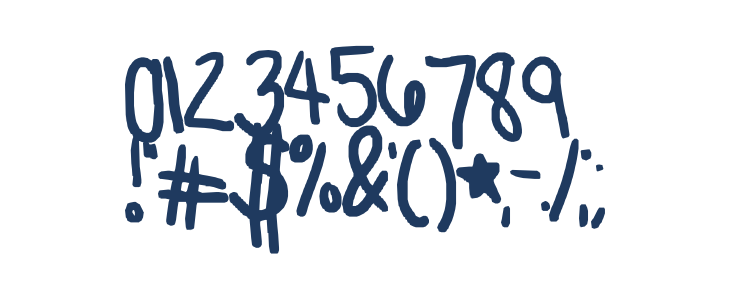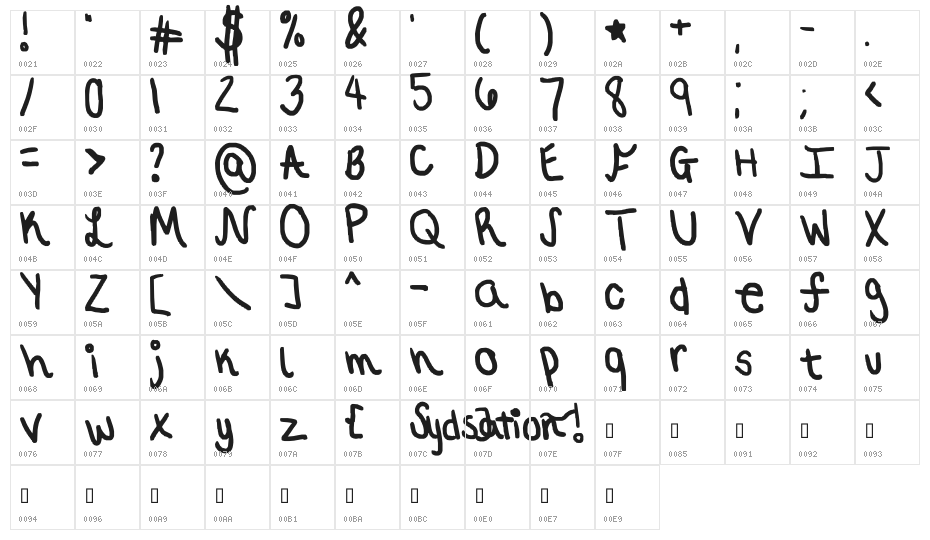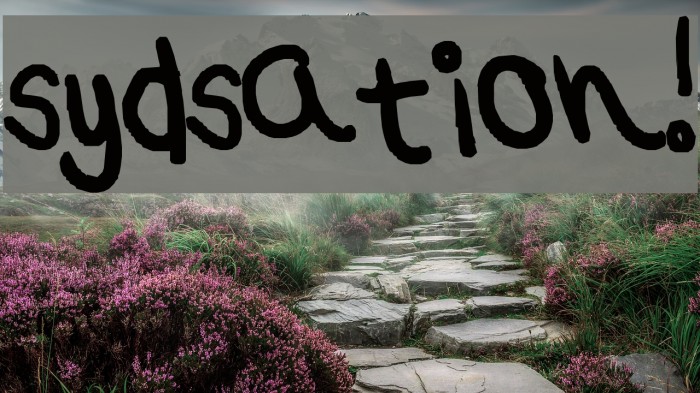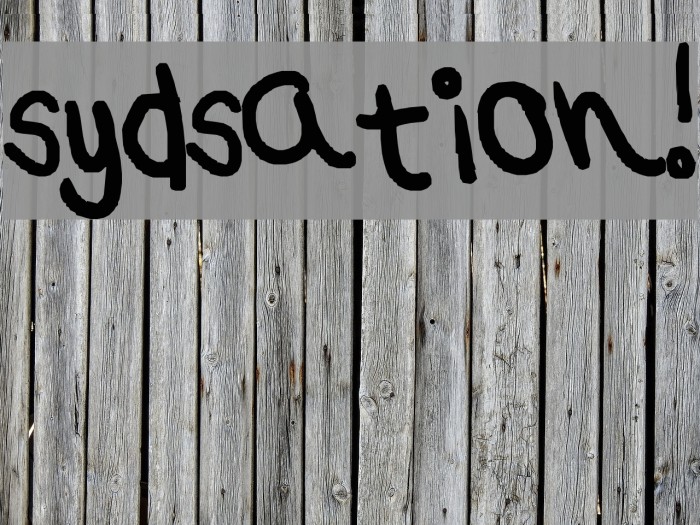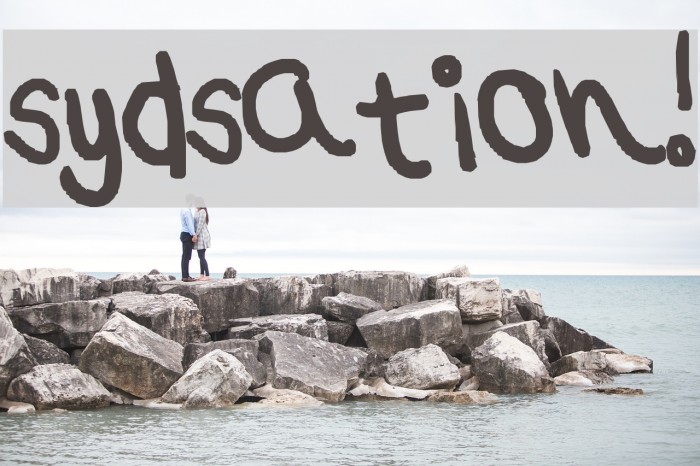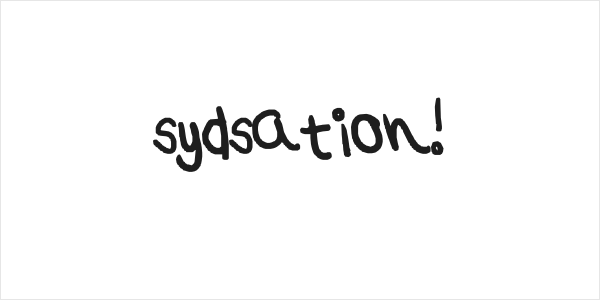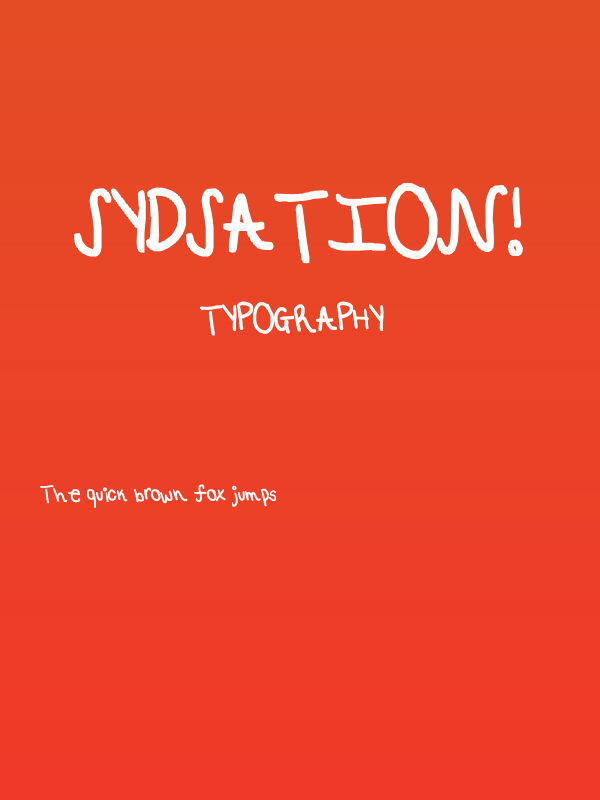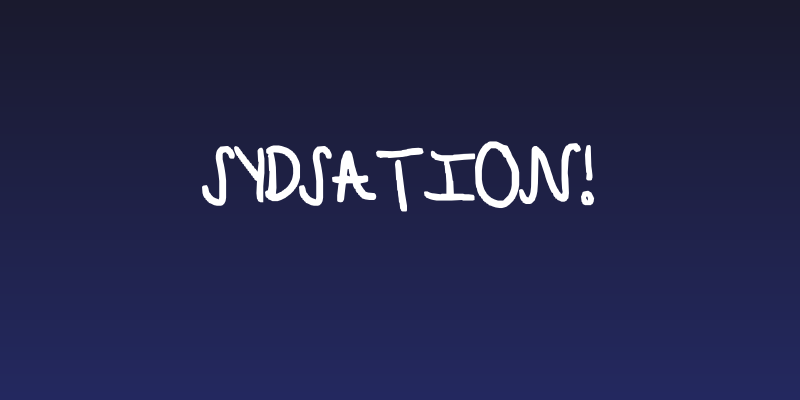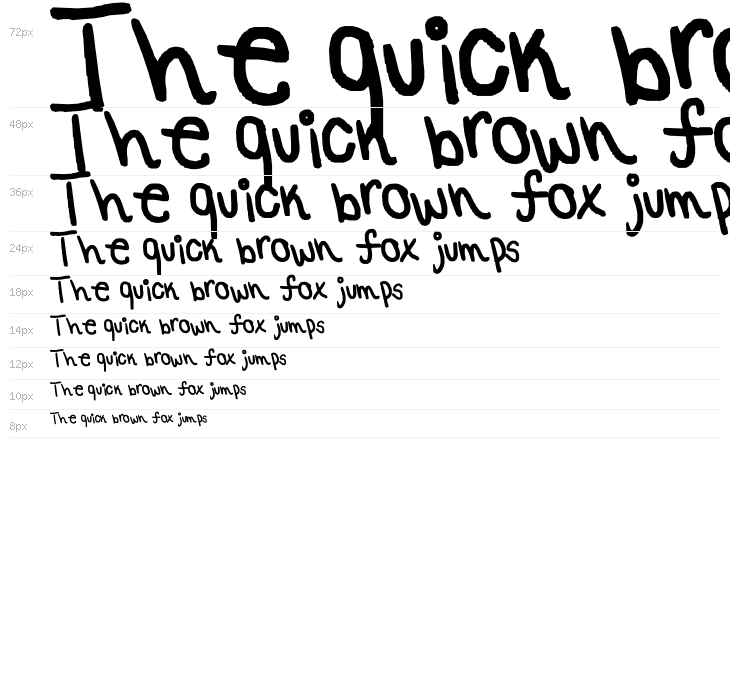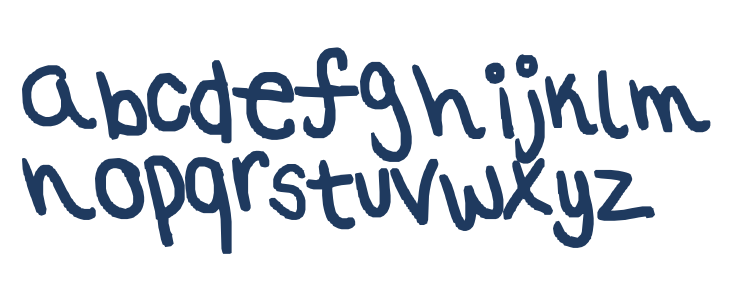
sydsation! Font
sydsation! Description
This font features a playful and casual handwritten style, characterized by its irregular strokes and informal appearance. The letters are slightly slanted, giving a dynamic and lively feel. The uppercase and lowercase letters maintain a consistent style, with rounded edges and a slightly uneven baseline, adding to its charm. Numbers and special characters follow the same playful aesthetic, making it suitable for creative and informal projects. The overall look is approachable and friendly, perfect for designs that aim to convey warmth and personality.
| Proposed Projects | Ideal for children's books, greeting cards, personal blogs, and informal branding. |